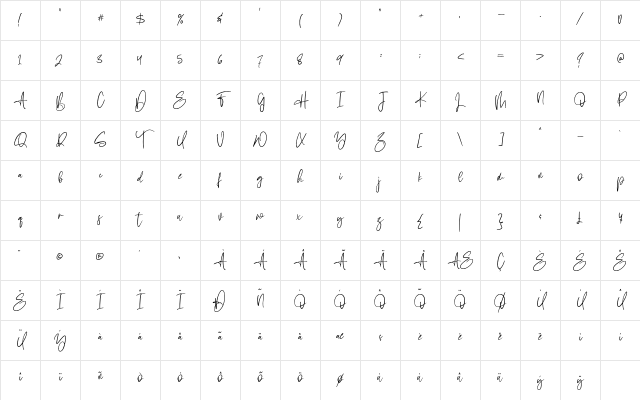
Sabina Angellica is a composed and adaptable typeface that performs quietly and consistently across a wide range of design contexts.
Pro Tip: Use Sabina Angellica in both headline and body roles to test its range before committing to a single application.